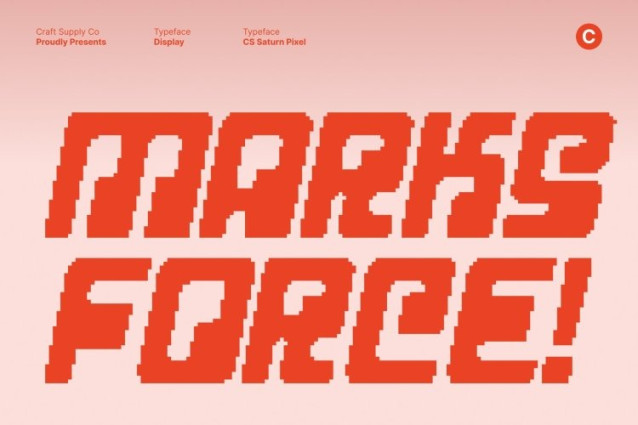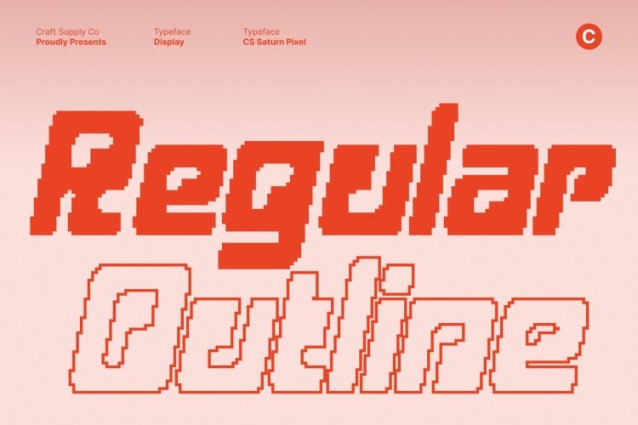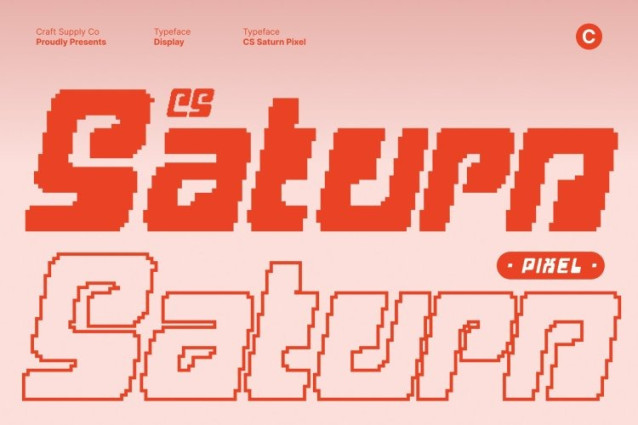
CS Saturn Pixel Font
CS Saturn Pixel Font This is a bold display font built on solid, blocky pixel construction that channels futuristic technology and digital strength. Its sharp edges and squared forms create a powerful techno atmosphere, evoking the look of early computer graphics, sci-fi interfaces, and retro digital systems. The pixel structure gives the font a distinctive mechanical feel that instantly communicates innovation and precision.
Bold Geometry with High Visual Impact
The thick, structured strokes of this font deliver a commanding and confident appearance. Every character is designed to stand firm, ensuring maximum visibility and impact. Its bold geometry makes it ideal for headlines, logos, and posters where clarity and strength are essential, even at a distance or on digital screens.
Perfect for Tech, Digital, and Retro-Futuristic Visuals
Inspired by both modern technology and classic digital aesthetics, this font excels in tech branding, digital advertising, futuristic posters, gaming visuals, music artwork, and sci-fi themed designs. The pixel style reinforces a strong connection to old technology, arcade visuals, and early computer typography while still feeling modern and relevant.
Versatile Power for Modern Branding
Despite its strong techno identity, this font remains versatile across creative applications. It performs beautifully in editorial layouts, event graphics, UI-inspired visuals, and contemporary branding systems. Its bold pixel form ensures clarity, authority, and a modern digital presence, helping designs establish a strong, confident, and forward-thinking identity.